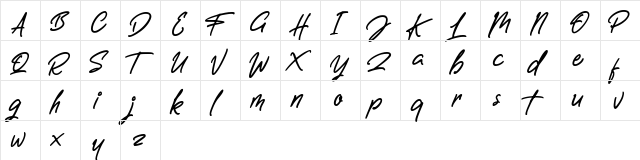
Letterally Handwritten Demo Regular
Design Context for Letterally Handwritten Demo Typeface
Letterally Handwritten Demo flows with the natural rhythm of handwritten lettering, making it ideal for designs that call for warmth and personal expression.
Font Pairing: Combine Letterally Handwritten Demo with a simple geometric sans for maximum contrast — the tension between flowing curves and clean structure is a classic typographic pairing.
Pro Tip: Use Letterally Handwritten Demo for short runs of text — names, titles, or taglines. Extended body copy in script faces tires the eye quickly.